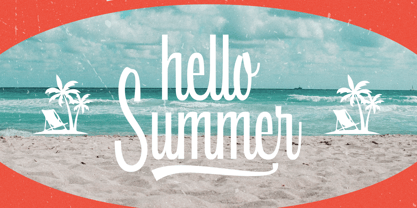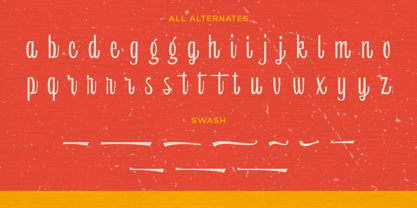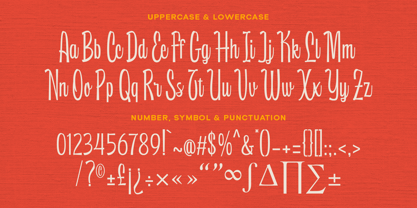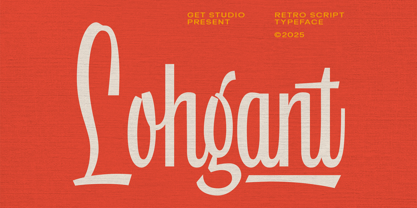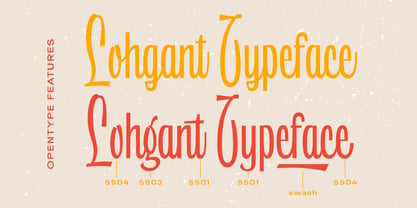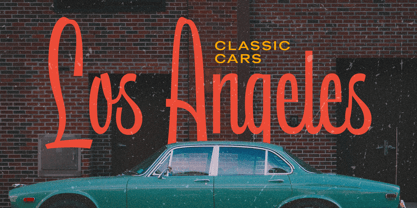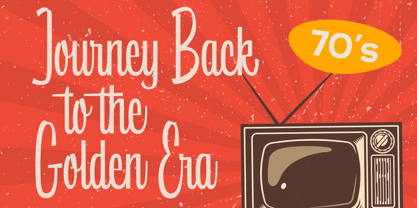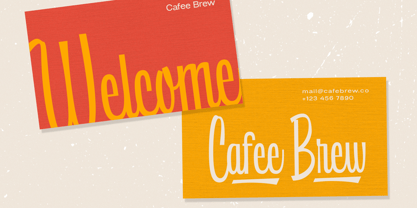
Lohgant
by Get Studio
Lohgant Script is an upright, clean script font with a charming retro flair. Its smooth curves and vintage-inspired letterforms bring a timeless elegance to logos, packaging, and display designs.